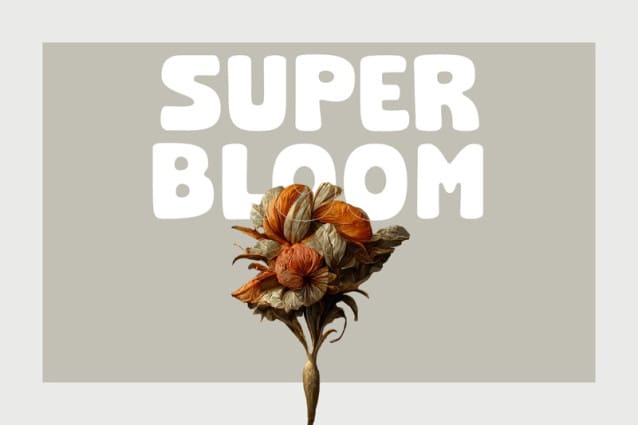
Super Bloom Font
Super Bloom Font, bursts onto the scene with a vibrant, playful personality that’s perfect for adding a touch of comic book magic to your designs.